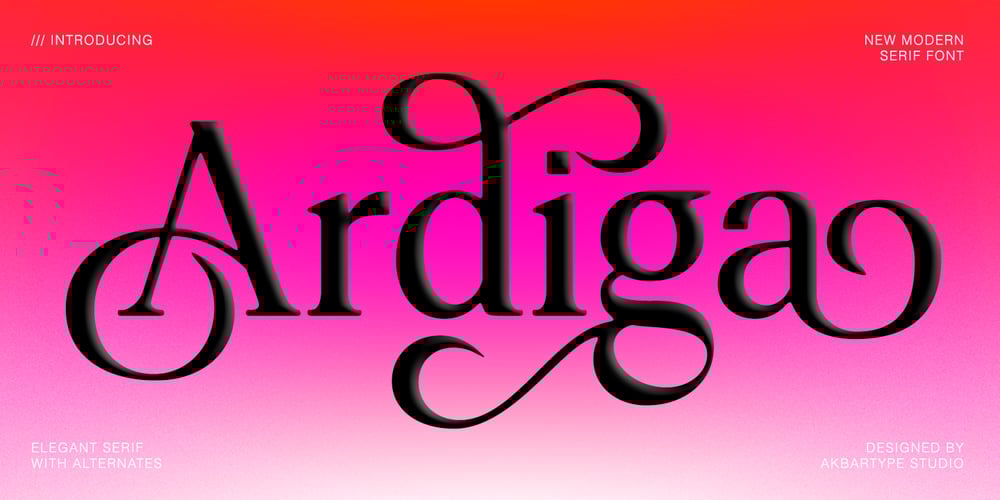
Ardiga Display Font Family was designed by Azzura . and published by Akbartype. Ardiga Display contains 2 styles and family package options. Ardiga Display is a sophisticated and distinctive serif font designed with elegant swashes and multiple alternate letterforms. It offers a refined touch for design projects like word-mark logos, monograms, or pull quotes. The font’s PUA encoding ensures seamless access to all its intricate glyphs and decorative swashes, making it a versatile and stylish choice for typography that needs to stand out with flair and originality. Whether used for branding, editorial design, or any creative endeavor, Ardiga Display brings a sense of luxury and uniqueness to the text.